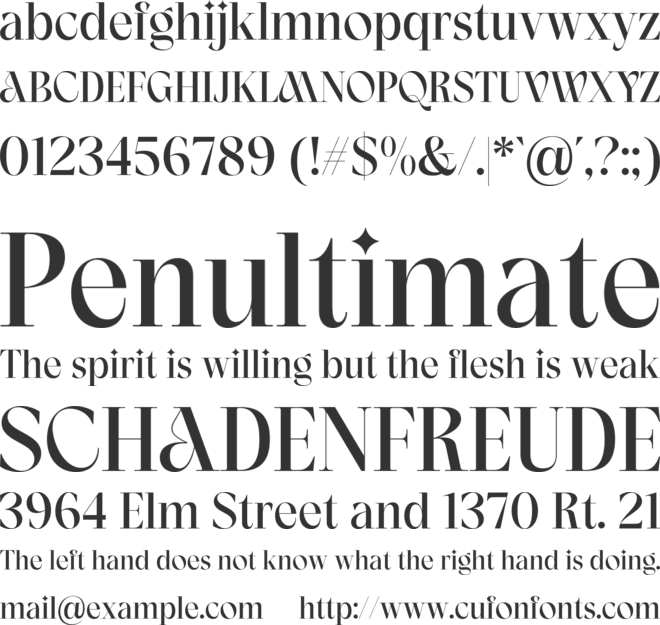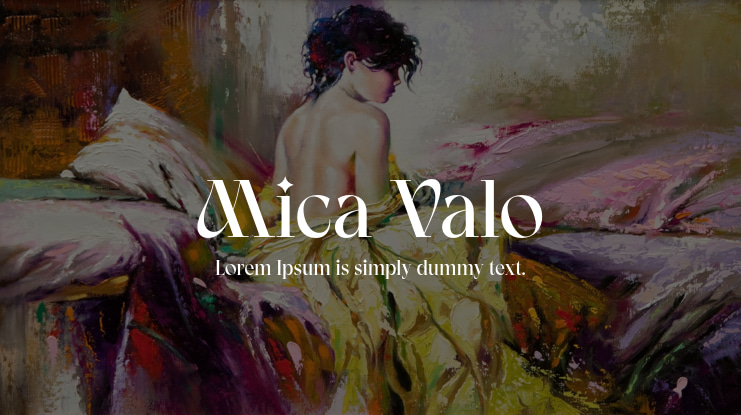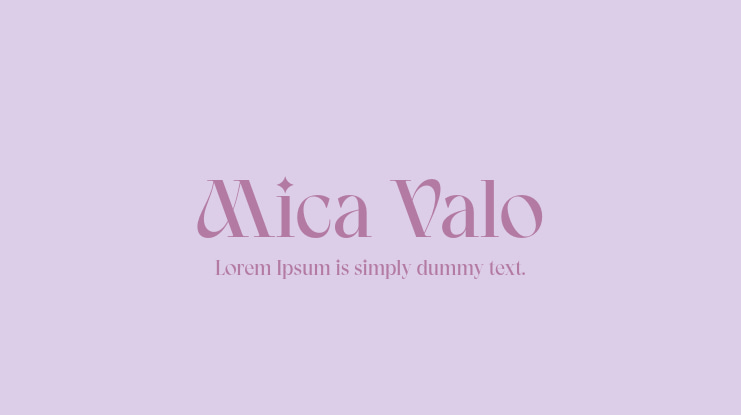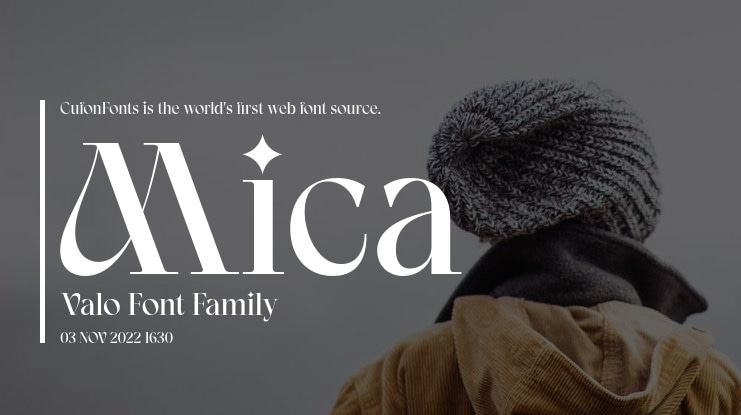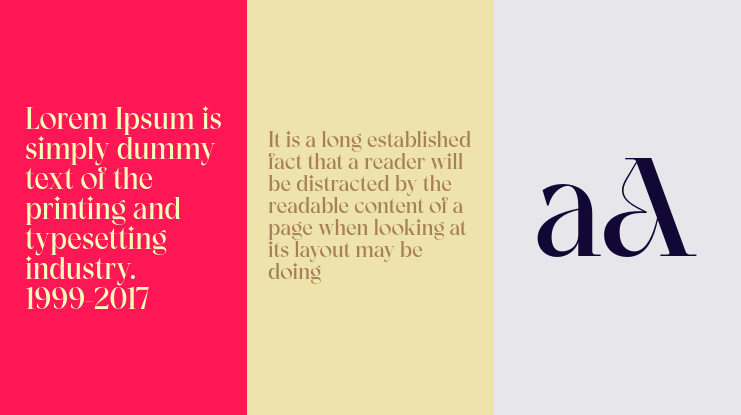
Mica Valo is a sophisticated serif font that exudes timeless elegance
and refinement. Its graceful curves and meticulous detailing make it
the perfect choice for projects that demand a touch of class.